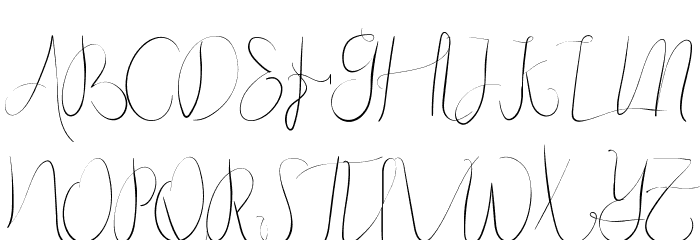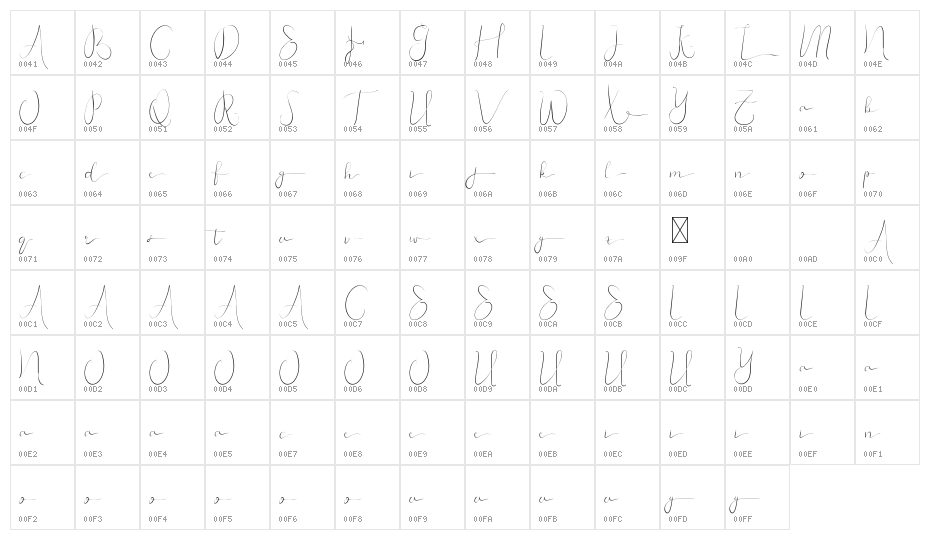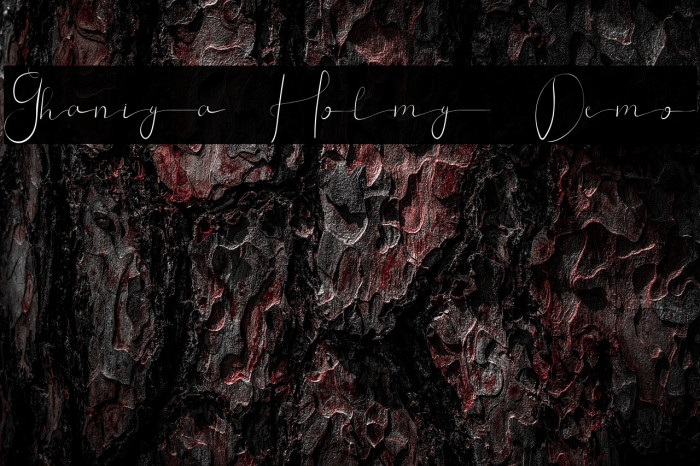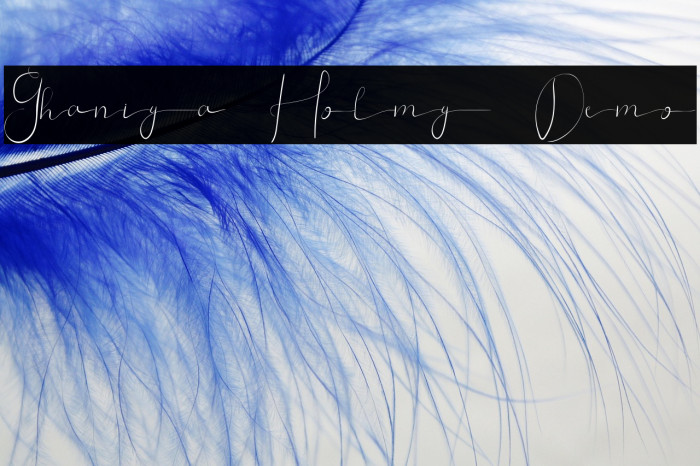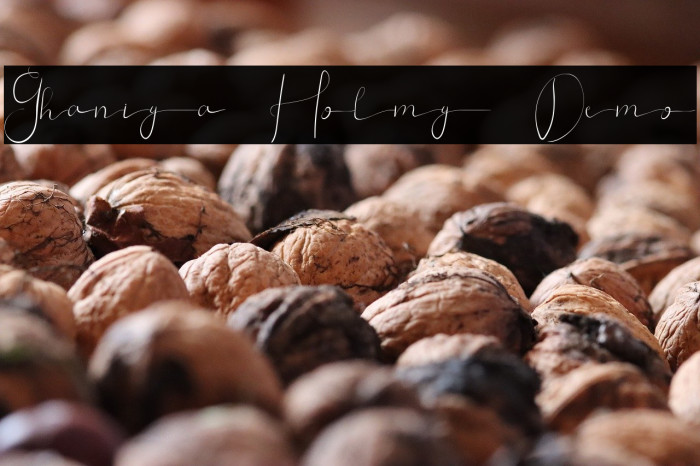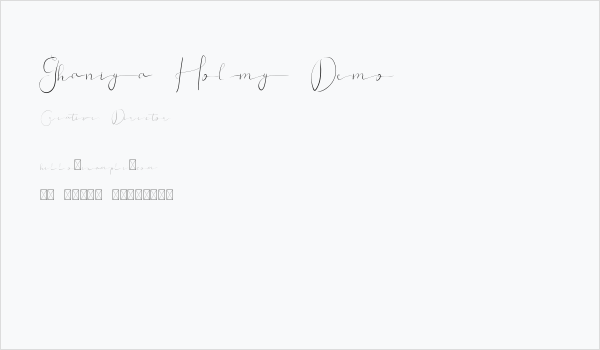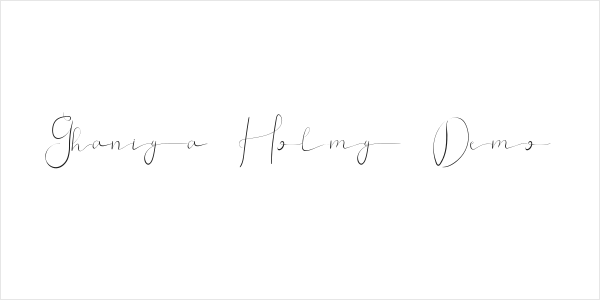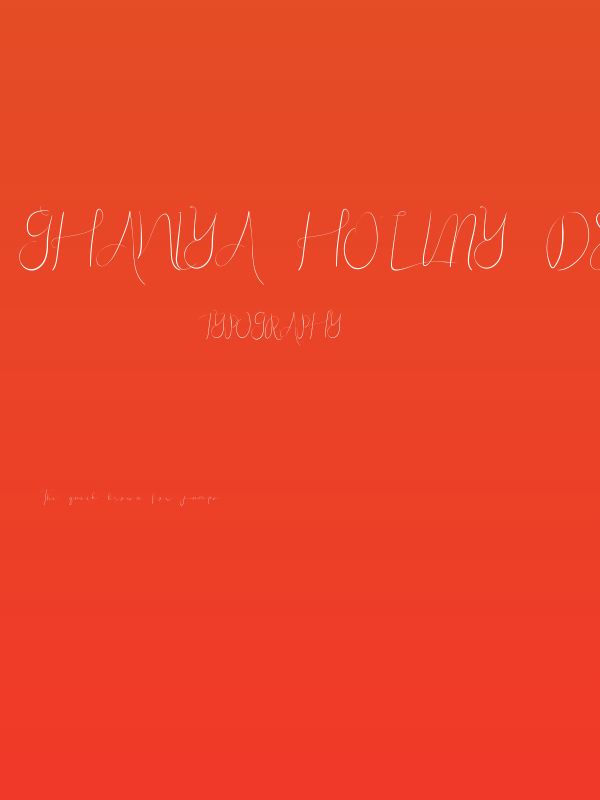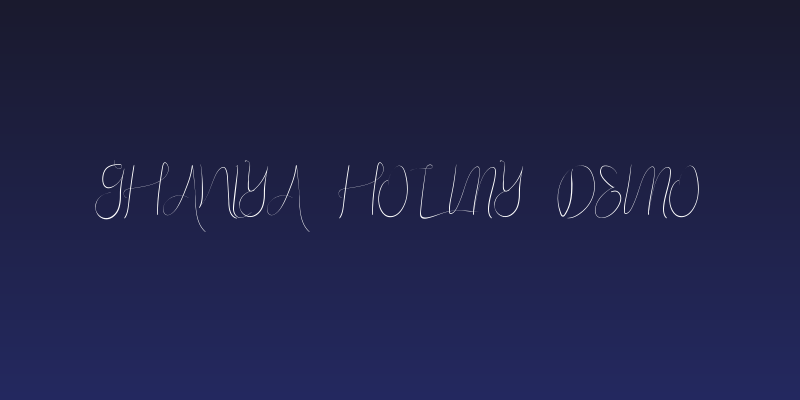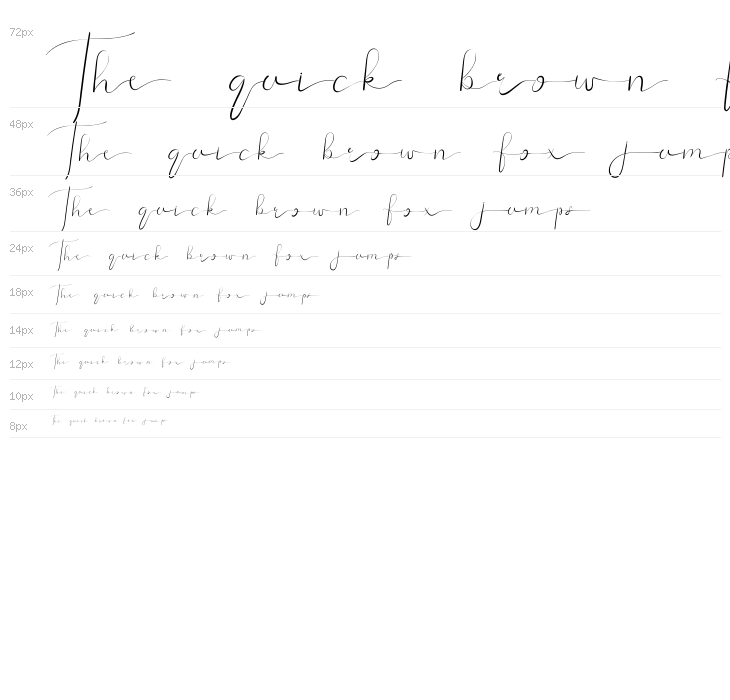
Ghaniya Holmy Demo Font
Ghaniya Holmy Demo Description
This elegant script font features a delicate, flowing style with high contrast between thick and thin strokes. The uppercase letters are ornate, with sweeping curves and loops that give a sense of movement and grace. The lowercase letters maintain a consistent baseline, connecting smoothly to create a harmonious flow. This font exudes sophistication and is perfect for projects that require a touch of elegance and refinement. The characters are well-spaced, allowing for readability while maintaining an artistic flair. The overall design is modern yet timeless, making it versatile for various applications.
| Overall Style | Elegant, Modern |
| Use Case | Logos, Invitations, Branding |
| Proposed Projects | Ideal for wedding invitations, luxury branding, elegant stationery, and artistic logos. |